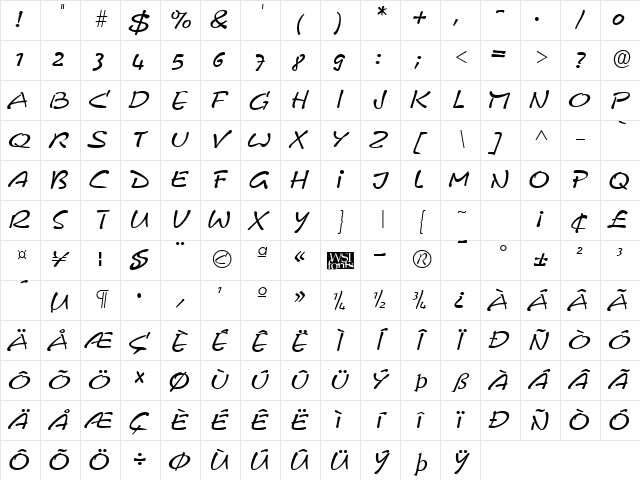
PyxidiumQuick Regular
PyxidiumQuick Family
PyxidiumQuick Regular
Design Context for PyxidiumQuick
PyxidiumQuick is a composed and adaptable typeface that performs quietly and consistently across a wide range of design contexts.